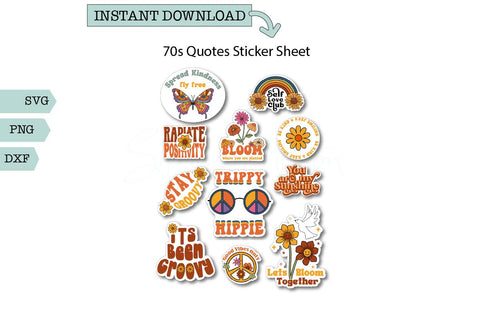
70s Quotes Sticker Sheet Butterfly
Bring on the retro vibes with this set of sticker sheets featuring fun and funky quotes from the 70s! Phrases like “Trippy Hippy,” “Stay Positive,” “Groovy,” and “Good Vibes” are styled in classic 70s fonts and colors—think warm oranges, mellow yellows, earthy browns, and bold pinks. Perfect for decorating water bottles, laptops, notebooks, planners, or craft projects, these stickers add a nostalgic, feel-good flair wherever they go. A great choice for vintage lovers and anyone who’s all about peace, love, and positivity!